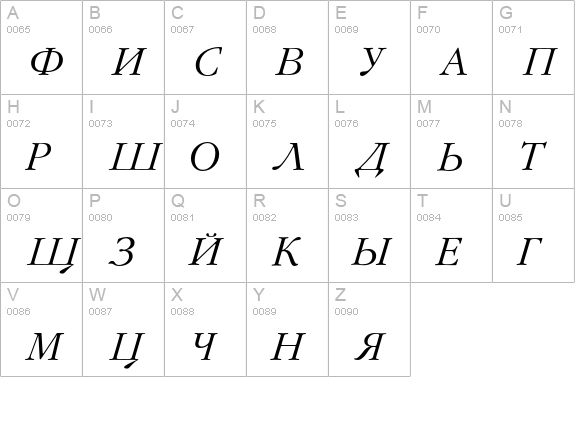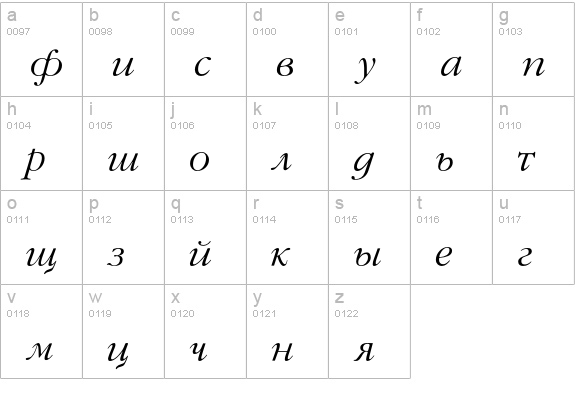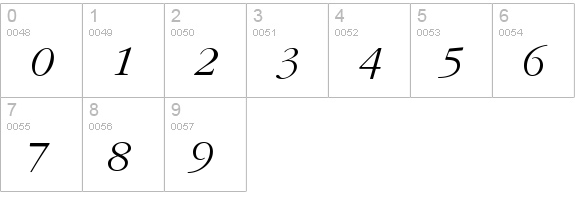
GaramondFLFCyrillic-Italic is a distinctive, italic variant in the GaramondFLFCyrillic typeface family \xE2\x80\x94 well suited to design and typography projects.
GaramondFLFCyrillic-Italic font is a stunning typeface that exudes elegance and sophistication. Its sleek and slanted design adds a touch of flair to any project, making it perfect for headings, titles, and other design elements that require a touch of class. The italicized characters flow smoothly, creating a sense of movement and dynamism on the page. What makes GaramondFLFCyrillic-Italic font even more appealing is that it is available for free download at FontsMarket.com. This means that you can easily access this beautiful typeface without having to spend a dime. Whether you are a graphic designer, a student, or a business owner looking to enhance your branding, GaramondFLFCyrillic-Italic font is a great choice that won't break the bank. With its timeless style and free availability, GaramondFLFCyrillic-Italic font is a versatile option that is sure to elevate your design projects to the next level. Download it today and add a touch of sophistication to your work!